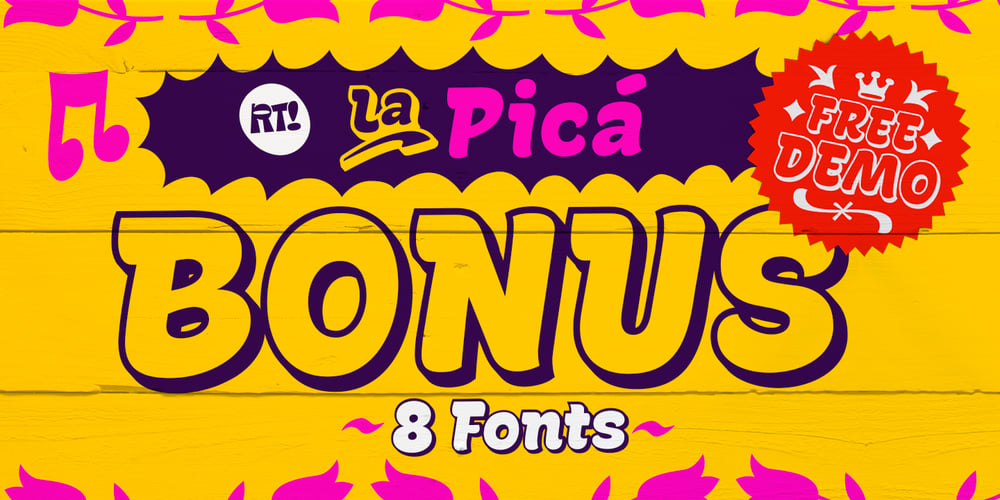
La Pica Bonus
La Pica Bonus font
La Pica Bonus Font Family was designed by Andrey Kudryavtsev, Rodrigo Araya Salas and published by RodrigoTypo. La Pica Bonus contains 9 styles and family package options. La Picá bonus is a new version with lower case letters, styles and dingbats that represents the popular lettering style.